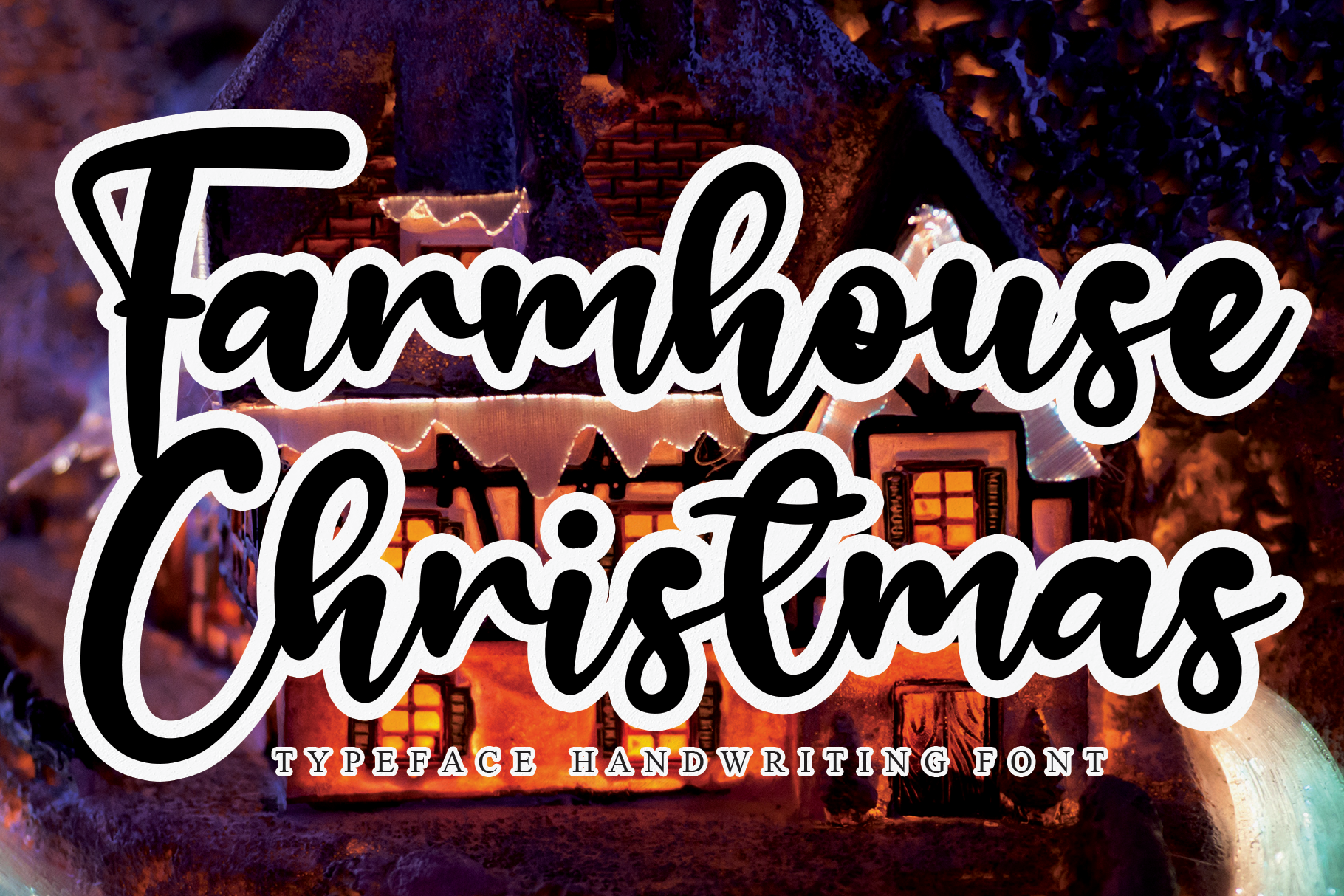
Farmhouse Christmas is a delicate and elegant handwritten font. Its distinct and well rounded letters make this font a masterpiece. Fall in love with its incredibly versatile style and use it to create spectacular designs!
You can’t really go “wrong” with a font line Farmhouse Christmas – I mean, it really does have that farmhouse, rustic feel to the lettering. It almost looks like someone’s writing using a paint brush – it’s quaint, charming, and the way the letters connect together – it’s so visually pleasing. Some calligraphy and hand lettering can be so large and wild and overly exaggerated – this is the perfect balance of size, space, whimsy, and structure. It’s COZY. Yes, that’s what it is – cozy – just like a night on the farm after all the work is done. And I’m sure you can play around with the spacing if you want the letters to be even cozier. This font is great for things like coffee/tea mugs, pajama quotes, journals, word tiles, and resin words.